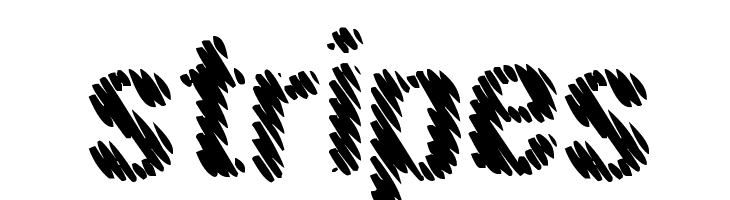
A playful, casual handwritten font with a doodle-like style.
A playful, handwritten font with a lively and informal style.
A playful, hand-drawn font with irregular strokes and a whimsical style.
A bold, playful handwritten font with a casual and friendly style.
A playful, hand-drawn font with a whimsical and informal style.
A bold, hand-drawn font with an expressive and informal style.
A playful, handwritten font with uneven strokes and a casual style.
A bold, playful handwritten font with dynamic strokes.
A casual, handwritten font with a dynamic and personal touch.
A playful, handwritten font with uneven strokes and a casual style.
A bold, distressed font with a rugged, volcanic texture.
A rugged, hand-chiseled style with a prehistoric aesthetic.
A playful balloon-themed font with rounded, bubbly characters.
A bold, distressed font with a hand-drawn, textured appearance.
A playful, hand-drawn font with bold, rounded characters and a whimsical style.
A bold, edgy font with a taped-together appearance, featuring sharp, angular characters.
A playful, hand-drawn font with a cartoonish, whimsical style.
A playful, dot-connected font with a whimsical and friendly style.
A playful, hand-drawn 3D font with a bold, textured style.
Bold, rounded, hand-drawn marker style font with a playful and informal look.
A hand-drawn, artistic font with elongated, irregular strokes and a playful appearance.
A bold, playful font with a chalkboard style and dashed pattern.
A playful, paint-splatter inspired font with bold, irregular characters.
A bold, playful font with a hand-drawn marker style.
A bold, geometric stencil-style font with a modern industrial feel.
A bold, decorative font with a stamped, striped effect.
A bold, shadowed font with a stamped, decorative style.
A bold, hand-painted style font with dynamic, textured strokes.
A bold, brush-style font with an artistic, hand-painted look.
A rustic, hand-drawn font with bold, playful characters and uneven strokes.